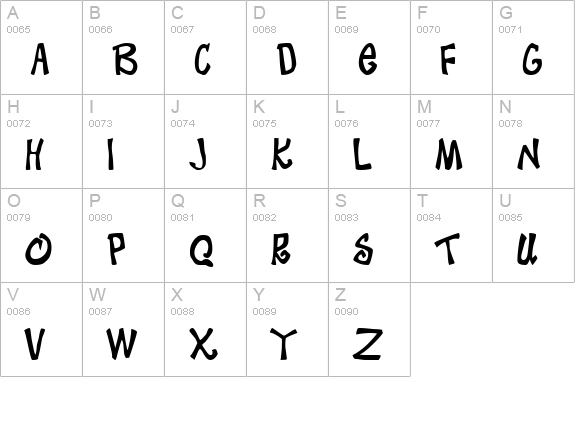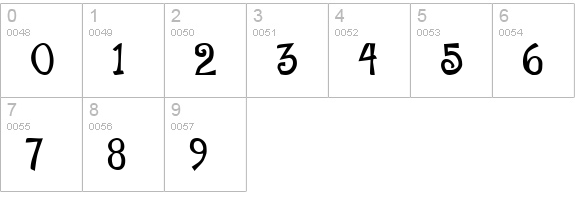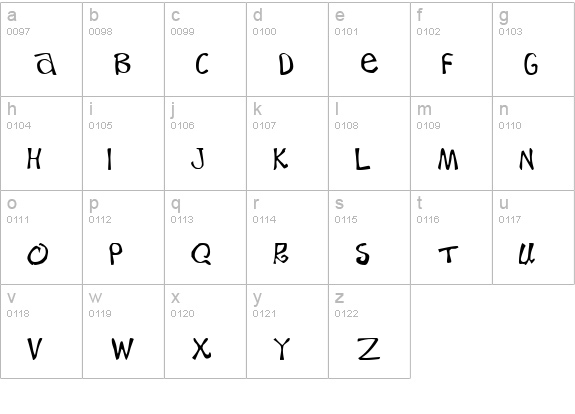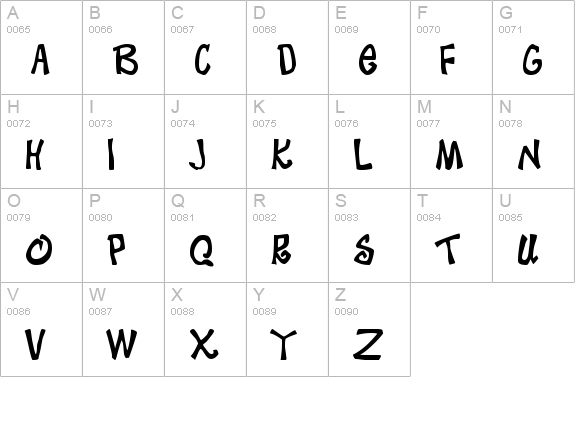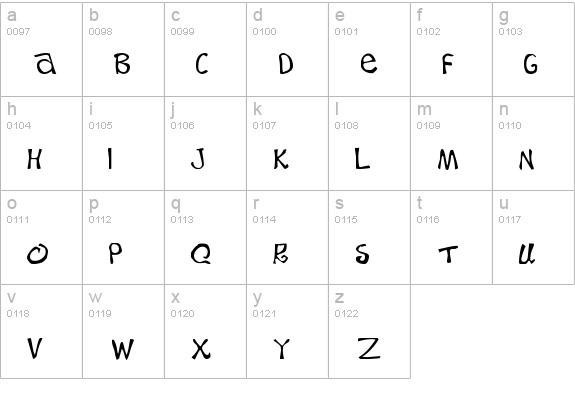
BeachType Medium is a balanced, medium-weight variant in the BeachType typeface family \xE2\x80\x94 well suited to sub-headlines, navigation, and balanced editorial work.
Introducing BeachType Medium font, a versatile and stylish typeface perfect for a wide range of design projects. This font combines a sense of elegance with a modern twist, making it ideal for both print and digital applications. The medium weight provides a balance between readability and impact, making it suitable for headlines, branding, and more. Best of all, BeachType Medium font is completely free to download at FontsMarket.com. Whether you're a graphic designer, web developer, or just looking to add a touch of sophistication to your projects, this font is a must-have addition to your collection. With its clean lines and contemporary feel, BeachType Medium font is sure to elevate your designs and leave a lasting impression.